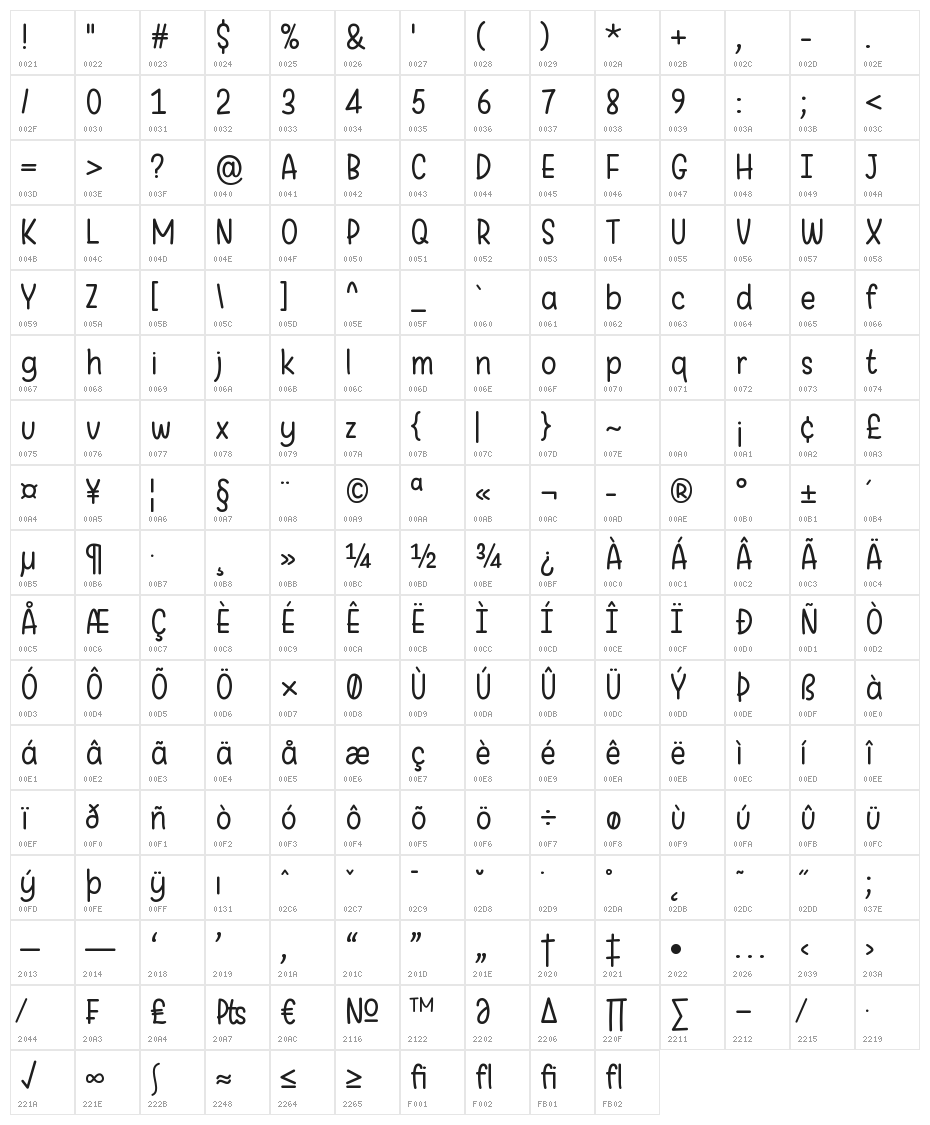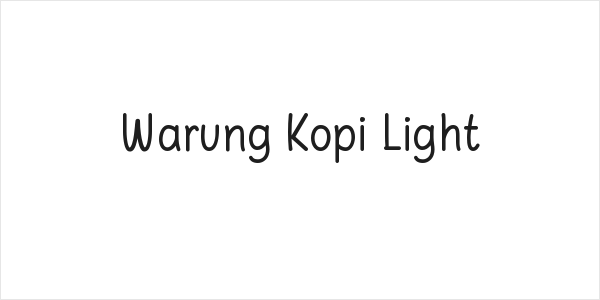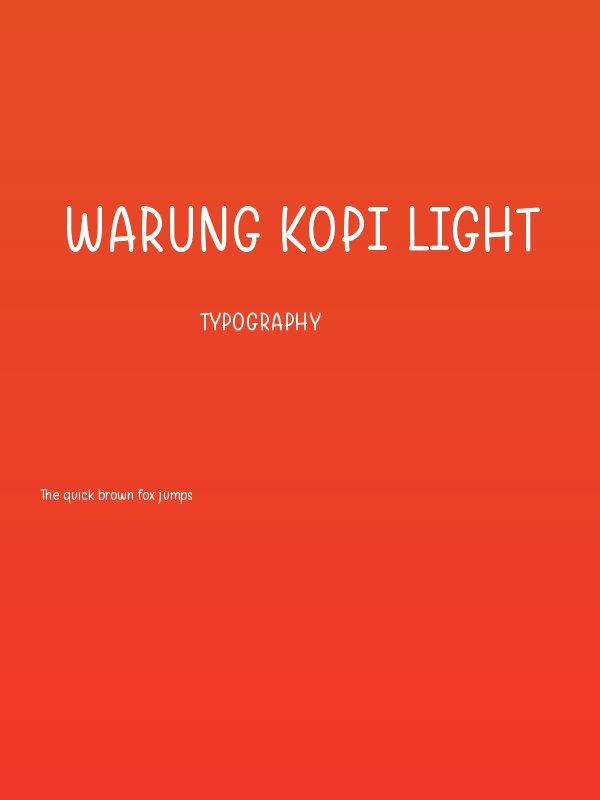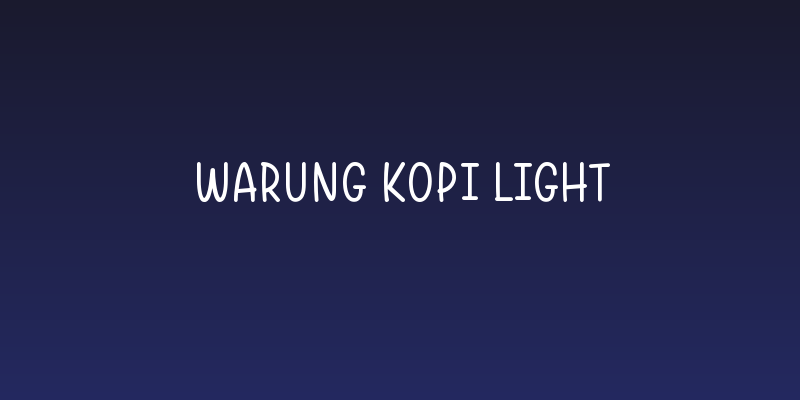
Warung Kopi Light Font
Warung Kopi Light Description
This font features a playful and informal style with rounded edges and a handwritten appearance. The characters are evenly spaced, giving it a clean and approachable look. The uppercase letters are bold and slightly taller than the lowercase, which have a consistent loop and curve design. Numbers are clear and legible, matching the overall style of the alphabet. Special characters are distinct and maintain the same playful aesthetic, making this font versatile for various uses.
| Use Case | Headlines, Casual text, Branding |
| Proposed Projects | Ideal for children's books, casual branding, social media graphics, and playful invitations. |